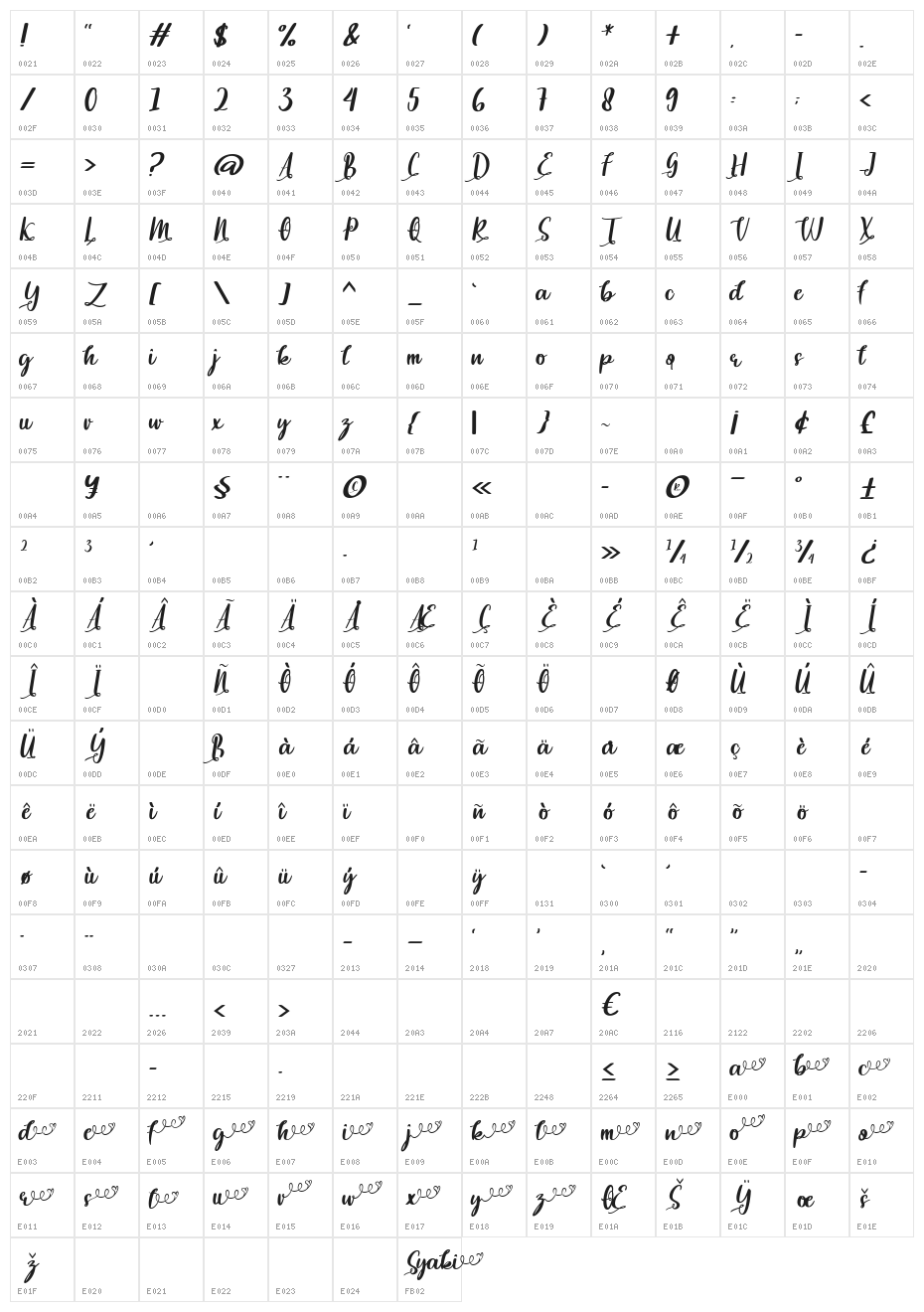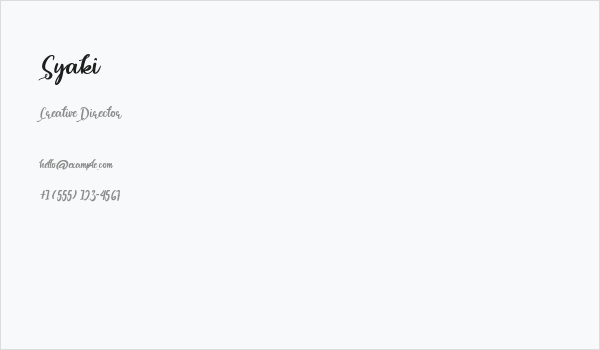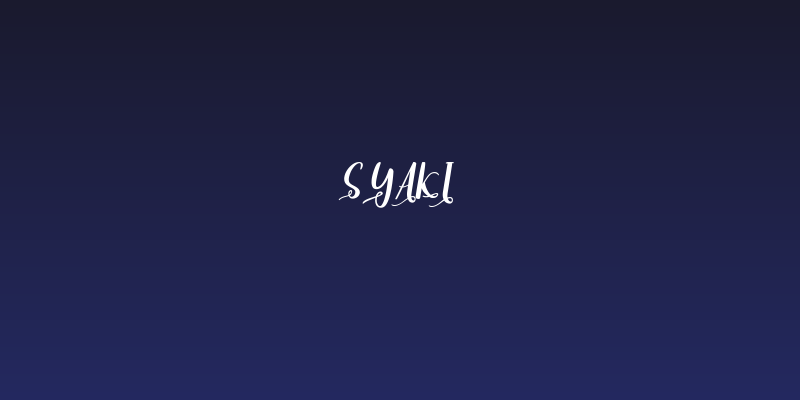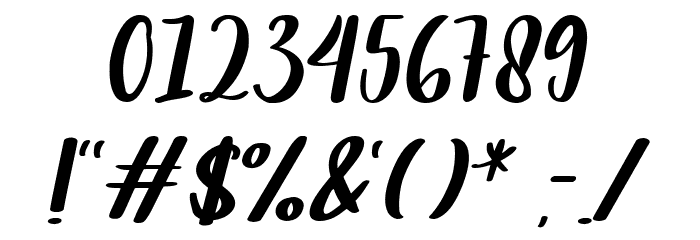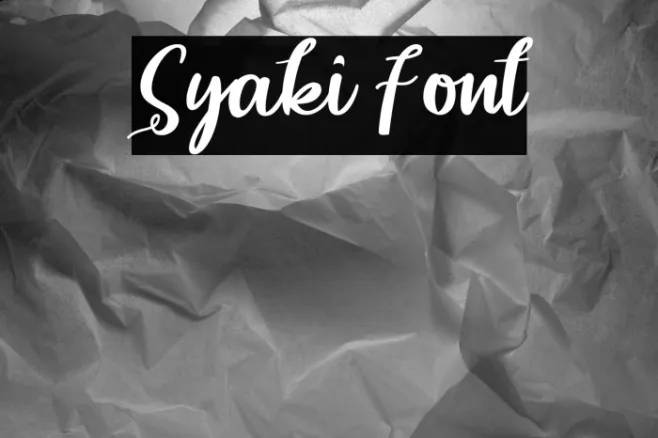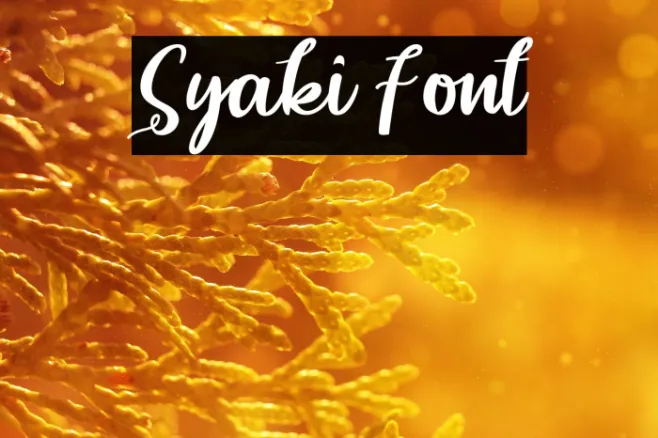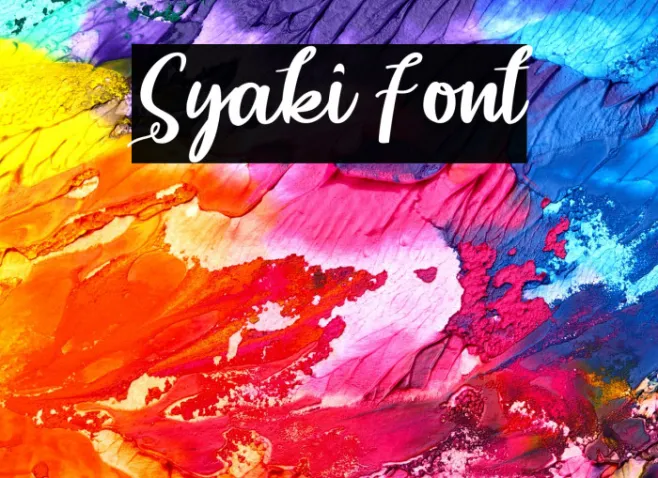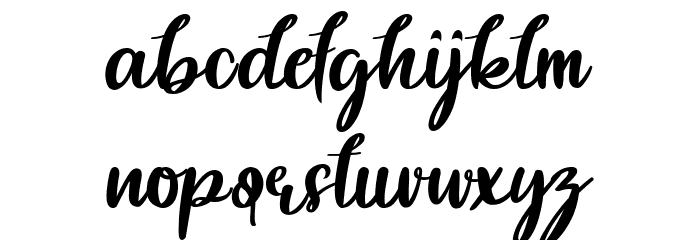
Syaki Font
Syaki Description
This font features a dynamic and elegant script style, characterized by its flowing and interconnected letterforms. The uppercase letters exhibit a sophisticated flair with extended strokes and subtle curls, while the lowercase letters maintain a smooth and cohesive appearance. The numerals are bold and slightly rounded, complementing the overall aesthetic. Special characters are thoughtfully designed to match the script's fluidity, making them suitable for decorative purposes. The font's artistic nature is ideal for projects that require a touch of elegance and creativity.